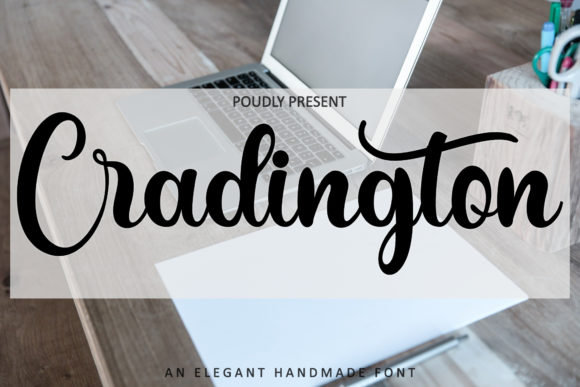
Unleash the captivating charm of your designs with Cradington Font, a script masterpiece that dances across your projects with effortless grace and elegance. Crafted by the skilled hands of the Coretanletter foundry, Cradington is not just a font; it's an ode to the beauty and fluidity of handwritten letters.
Each character in the Cradington Font family is a testament to the artistry of its creation, boasting distinct and well-balanced forms that harmonize seamlessly. The result is a font that exudes a timeless appeal, ready to elevate your designs to new heights of sophistication and charm.
Fall head over heels for the incredibly versatile style of the Cradington Font. Its adaptability knows no bounds, effortlessly complementing a vast spectrum of design projects. Whether you seek to craft heartfelt invitations, elegant logos, or captivating social media posts, Cradington rises to the occasion with unwavering poise and allure.
With Cradington, you'll unlock a world of creative possibilities. Dive into the depths of your imagination and let the font's enchanting curves guide you towards designs that resonate with your audience. Its delicate strokes and graceful swashes add a touch of whimsy, inviting viewers to immerse themselves in the enchanting world you create.
Cradington Font is more than just a collection of letters; it's an experience that captivates and inspires. Its PUA encoding grants you the freedom to effortlessly access a treasure trove of glyphs and swashes, empowering you to unleash your creativity without boundaries.
Join the ranks of discerning designers who have succumbed to the allure of the Cradington Font. Let its lyrical lines dance across your projects, captivating your audience and leaving them spellbound. Embrace the timeless beauty of handwritten artistry and transform your designs into masterpieces that transcend the ordinary.